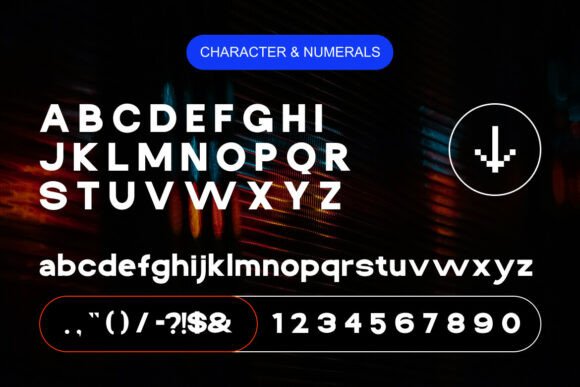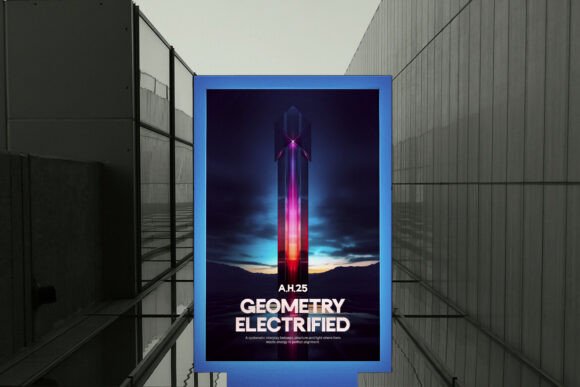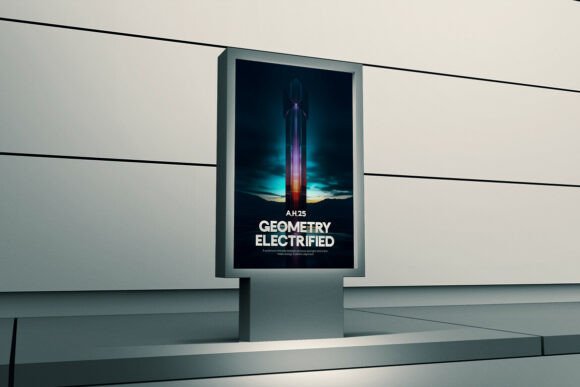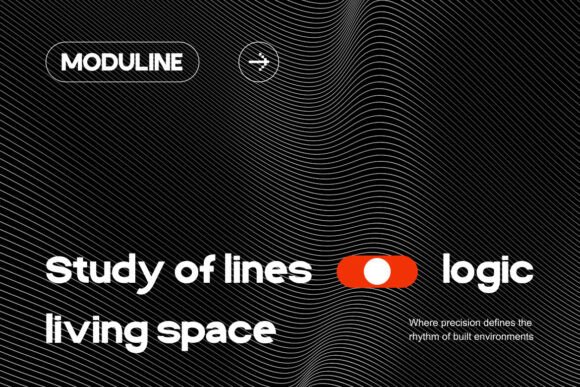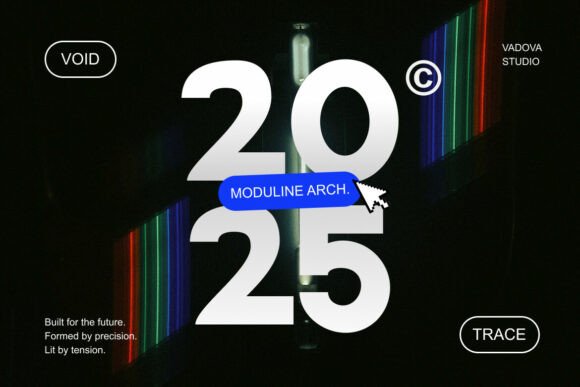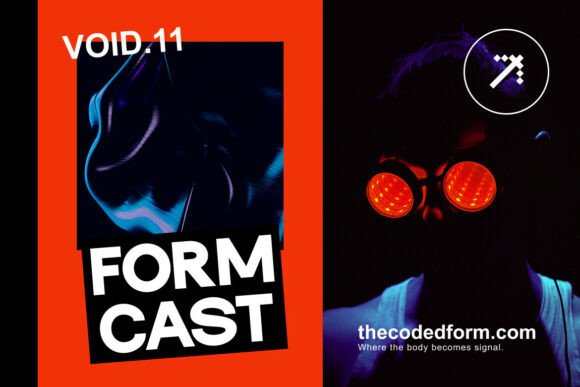
Introduction to Moduline Font
Moduline Heavy Bold Serif Font is a bold modern sans serif font designed with geometric precision and clean curves.
With its heavy weight and soft rounded edges, Moduline delivers a confident and futuristic look while retaining warmth and versatility Ideal for branding, technology, editorial layouts, product packaging, and contemporary poster design, Moduline stands out with its sleek style that blends modernism and structure.
Key Features of Moduline Font
Why Choose Moduline Font?